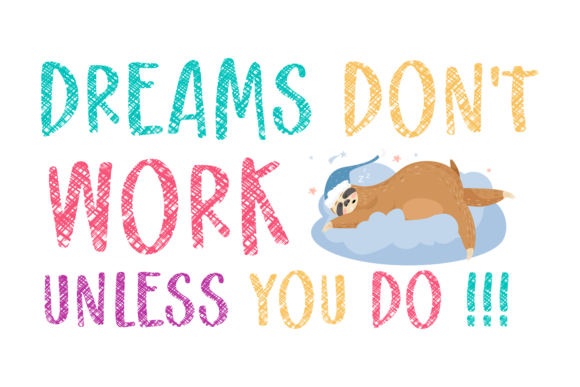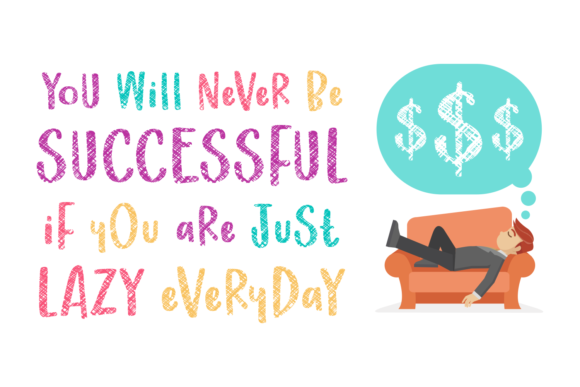
Boring Killer Font
db-ku.com - Script & Handwritten -- Boring Killer is a crafter’s dream come true: It’s uniquely scribbled style is perfectly matched with classic lettering.